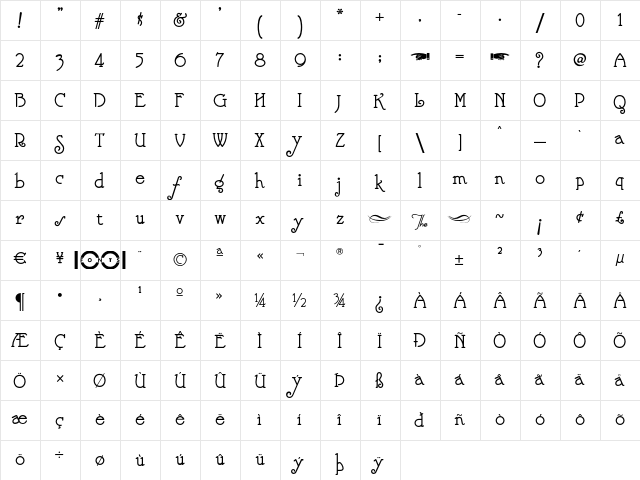
Nickelodeon NF Regular
Design Context for Nickelodeon NF Typeface
Nickelodeon NF is a composed and adaptable typeface that performs quietly and consistently across a wide range of design contexts.